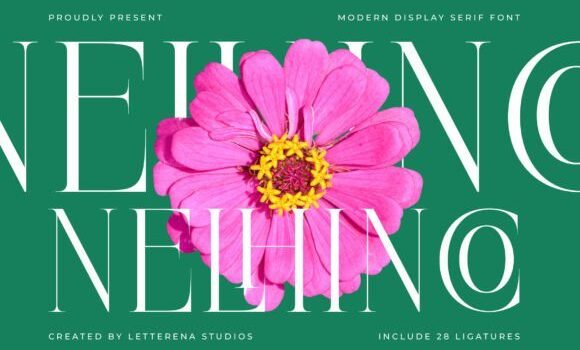
nelhinco
Nelhinco Font - Featured Image
Nelhinco Font – Free Download Introduction to Nelhinco Font Nelhinco – Modern Display Serif , from Letterena, is a Luxury Serif font, suitable for any projects such as: logos, branding projects, homeware designs, product packaging, mugs, quotes, posters, shopping bags,